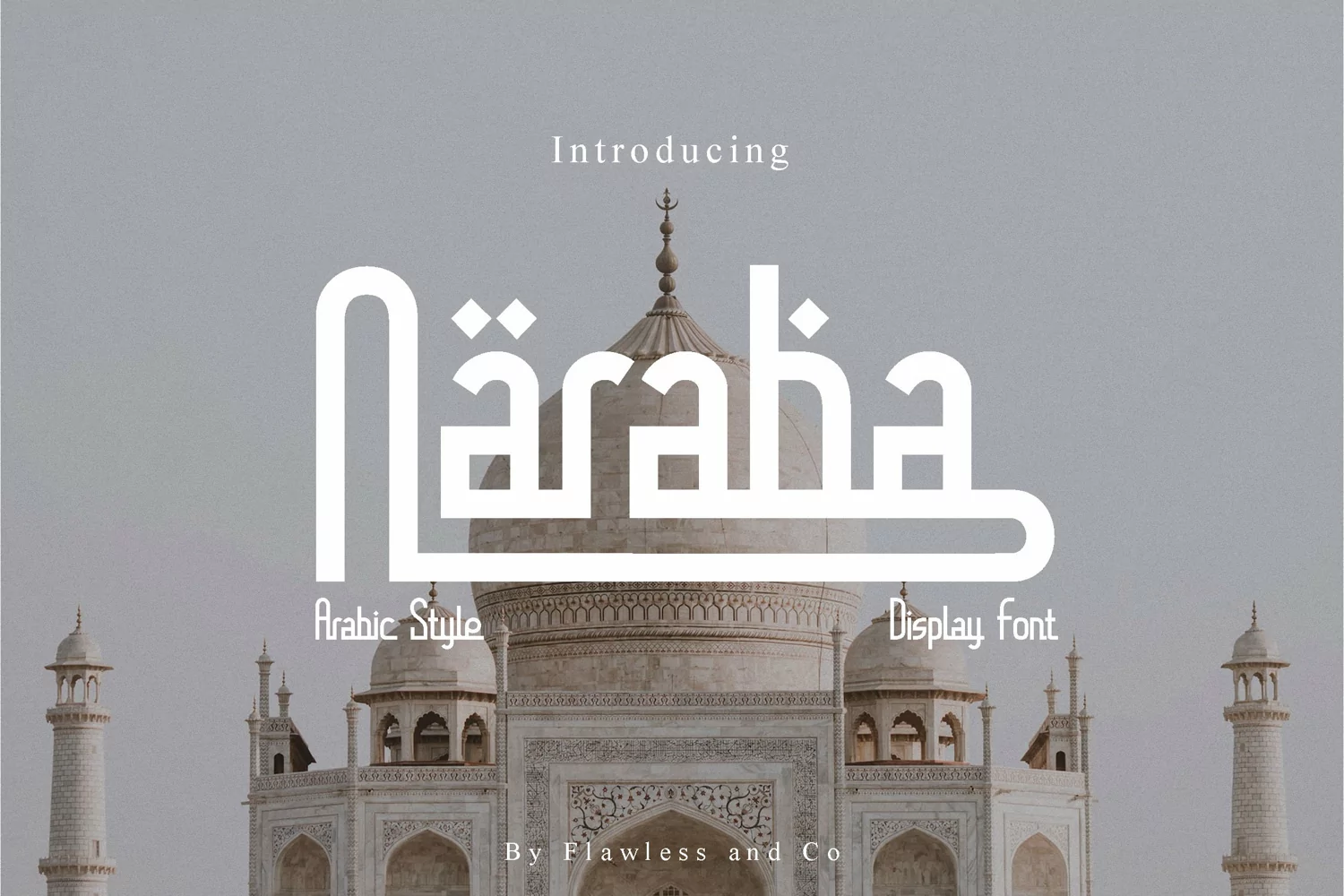
Naraba
Introducing "Naraba," a stunning Arabic font inspired by the elegant Kufi style. This meticulously crafted typeface seamlessly merges tradition and modernity, making it perfect for a wide range of design applications.
There's some connected letters and some alternates that suitable for any graphic designs such as branding materials, t-shirt, print, business cards, logo, poster, t-shirt, photography, quotes .etc
This font support for some multilingual. Also contains uppercase A-Z and lowercase a-z, alternate character, numbers 0-9, and some punctuation.